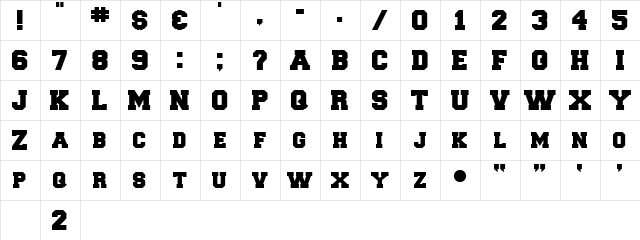
CollegeFLF-Black.R8 R8
Design Context for CollegeFLF-Black.R8 Typeface
CollegeFLF-Black.R8 brings high-energy athletic personality to the page — its confident, muscular forms are built for impact.
Built for sports team identities, athletic apparel, event posters, and high-energy promotional material.
Font Pairing: Use alongside a condensed or geometric sans for supporting copy — keep the pairing bold, functional, and free of ornament.
Pro Tip: CollegeFLF-Black.R8 thrives on contrast — try it large, bold, and tight against a clean background for maximum visual impact.